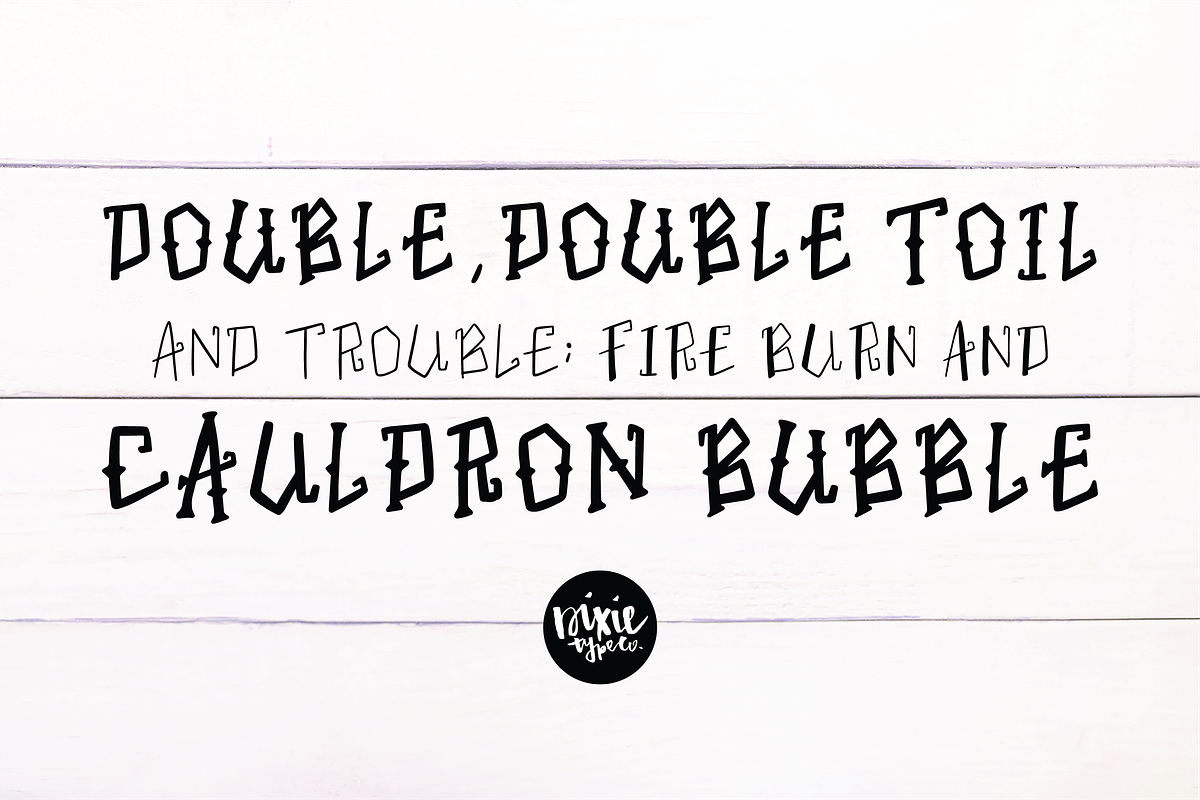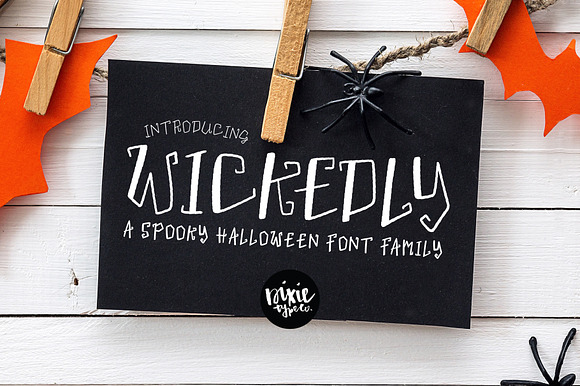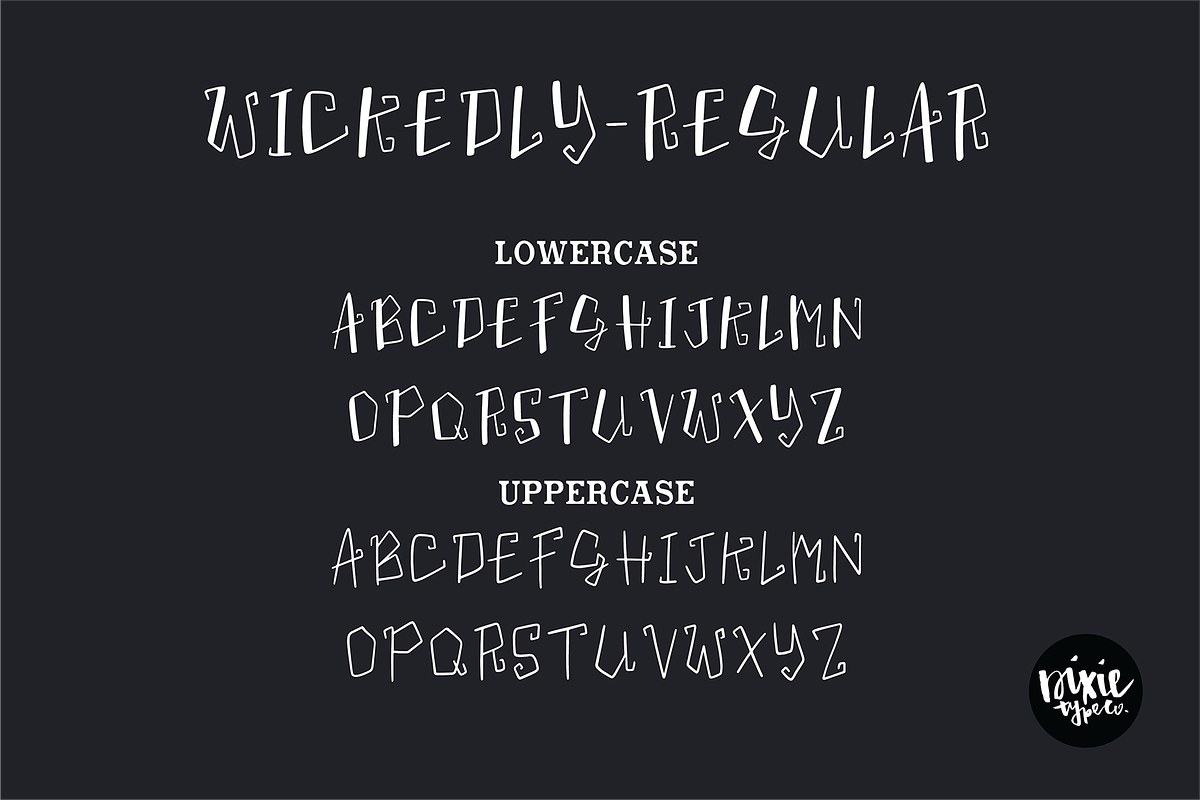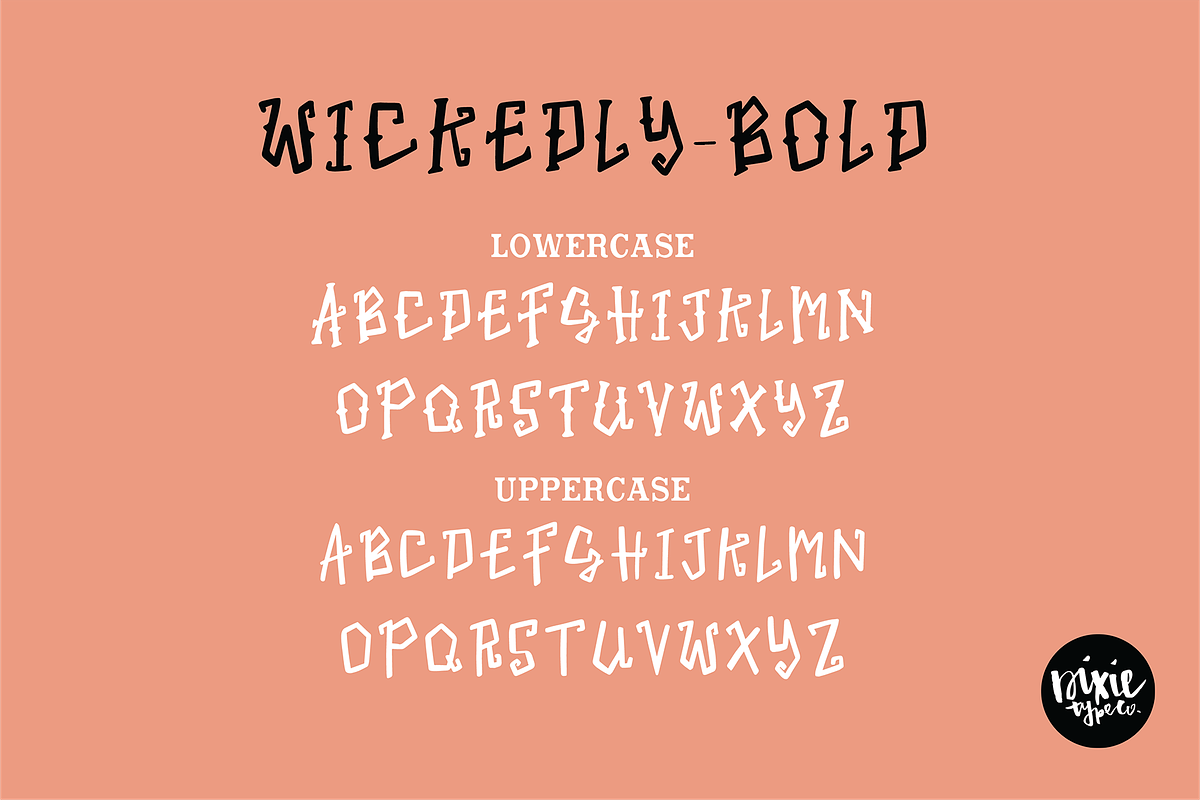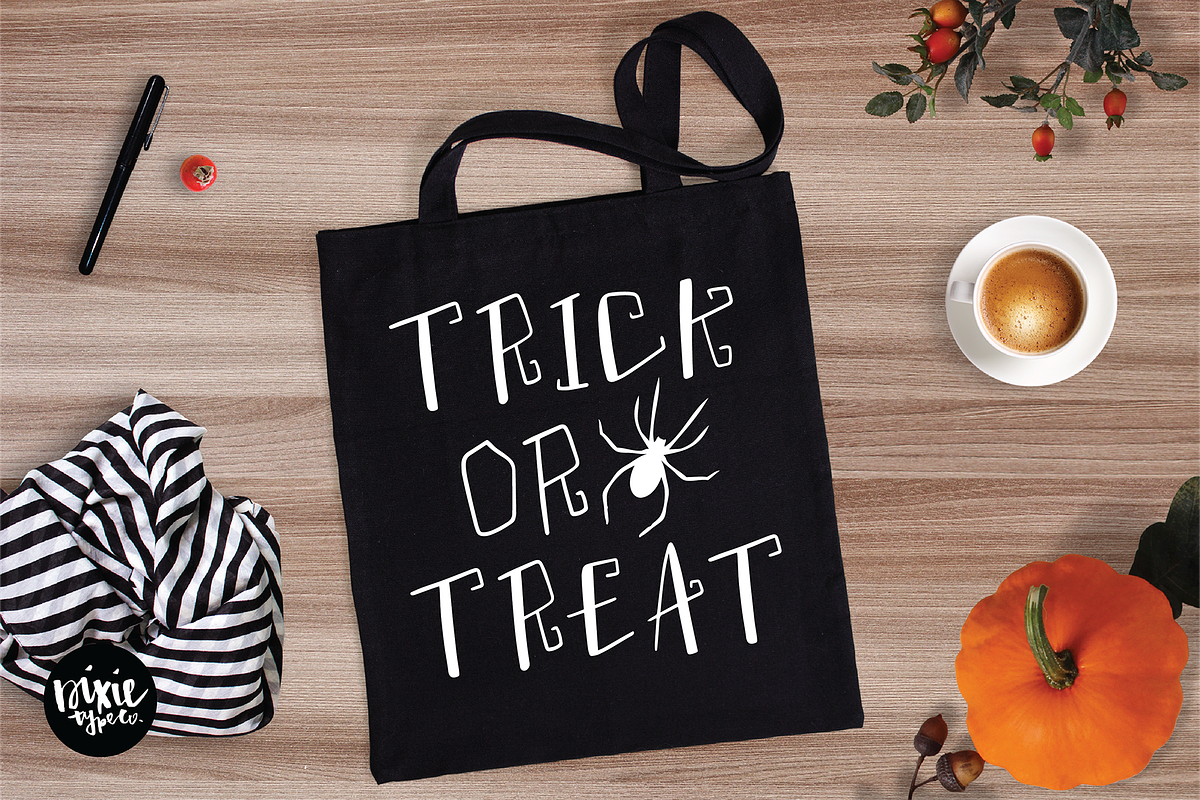
WICKEDLY a Decorative Halloween Font
"Wickedly" A decorative Halloween font family - 4 variations
{ A typographic font hand lettered with love by Dixie Type Co. }
The 4 variations come in 2 fonts, DTC Wickedly Bold and DTC Wickedly Regular. Use upper and lower case characters to access all 4 variations.
- Use upper and lower case characters to access all 4 variations.
- DTC Wickedly Regular
- DTC Wickedly Bold